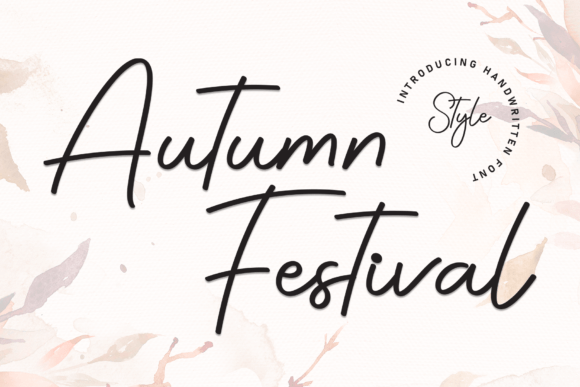
Journey into the world of elegance and charm with Autumn Festival Font, the script font that will captivate your senses and make your designs shine. With its timeless handwritten style, Autumn Festival is the perfect choice for creating eye-catching logos, branding, and quotes that leave a lasting impression.
Enter a world where every letter is a work of art, meticulously crafted to exude a unique and beautiful touch that brings your designs to life. Autumn Festival's enchanting curves and graceful lines dance across the page, creating a visual symphony that is both captivating and inviting.
Unleash your creativity and let your imagination soar as you explore the endless possibilities of Autumn Festival Font. Whether you're designing a heartfelt logo, crafting a memorable brand identity, or creating inspirational quotes to share with the world, this font is your perfect companion.
Immerse yourself in the beauty of Autumn Festival and discover the power of handwritten elegance. Each word, each phrase, each design you create with this font will carry a touch of timeless charm and sophistication that is sure to leave a lasting impact.
With Autumn Festival Font, you hold the key to unlocking a world of creative possibilities. Embrace its timeless beauty and let your designs flourish into masterpieces that captivate, inspire, and leave an indelible mark on the hearts of your audience.